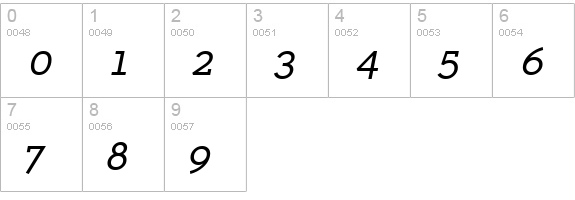
BacktalkSerif BTN SC BoldOblique is a captivating and versatile font that effortlessly combines elegance with a touch of attitude. Its bold and slanted design adds a rebellious and edgy vibe to any project, making it perfect for creating eye-catching headlines, logos, and branding materials. With its sleek and stylish appearance, BacktalkSerif BTN SC BoldOblique commands attention and leaves a lasting impression. The bold strokes and oblique angles give this font a dynamic and energetic feel, making it ideal for projects that require a strong visual impact. What sets BacktalkSerif BTN SC BoldOblique apart is that it is not only visually stunning, but it is also free to download at FontsMarket.com. This means that you can easily access this impressive font without having to worry about breaking the bank. Whether you're a professional designer or an aspiring creative, having a font like BacktalkSerif BTN SC BoldOblique in your arsenal will undoubtedly elevate your work to new heights. The versatility of BacktalkSerif BTN SC BoldOblique is evident in its ability to adapt to various design styles and contexts. It seamlessly complements both modern and vintage aesthetics, making it a go-to choice for designers looking to add a touch of sophistication and boldness to their projects. So, whether you're working on a print design, a digital project, or even a personal creative endeavor, BacktalkSerif BTN SC BoldOblique is the perfect font to make a statement. Its free availability at FontsMarket.com ensures that you can freely explore its potential and unleash your creativity without any limitations. Download BacktalkSerif BTN SC BoldOblique today and discover the power of this exceptional font. Let it be the driving force behind your next design masterpiece and watch as it captivates audiences with its striking presence and undeniable character.